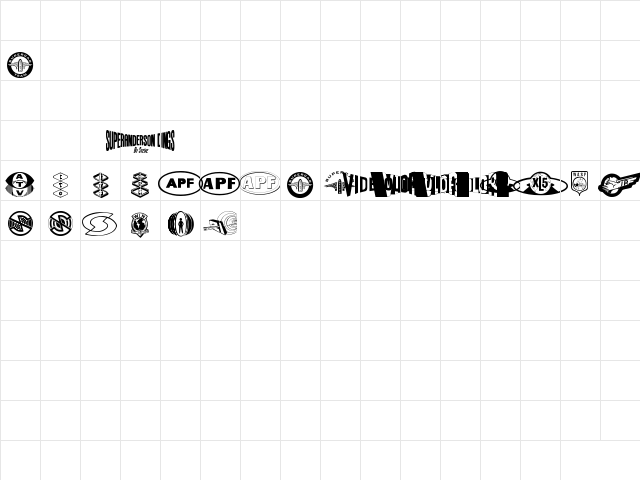
Anderson Dings 1 Regular Font Preview
Anderson Dings 1 Regular
Anderson Dings 1 Regular Font Details
Design Context for Anderson Dings 1 Typeface
Anderson Dings 1 is a composed and adaptable typeface that performs quietly and consistently across a wide range of design contexts.